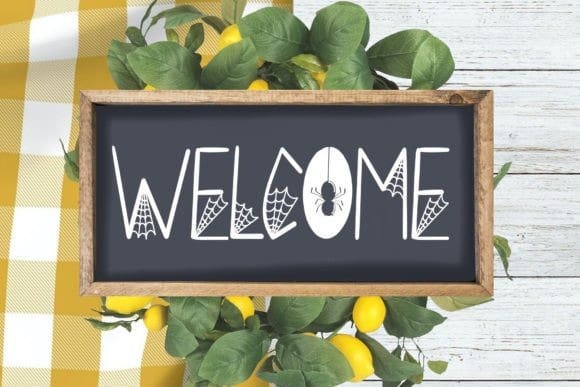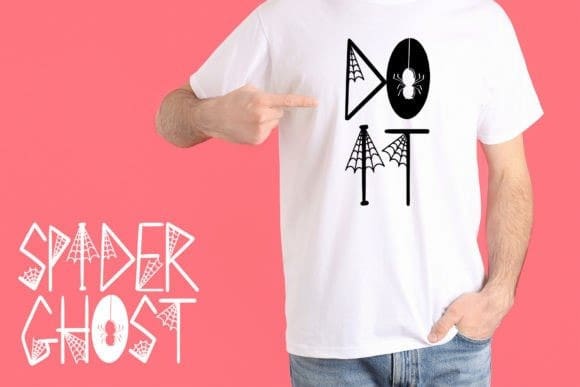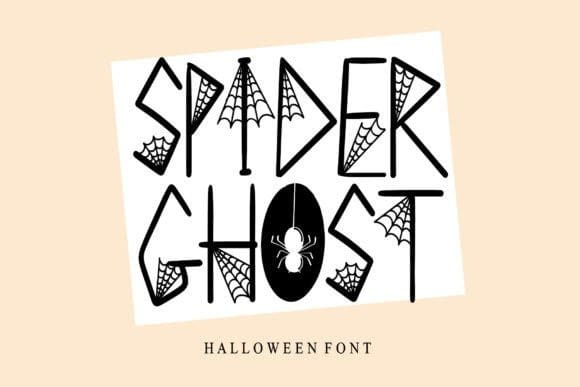
Spider Ghost Font
Spider Ghost Font is a Halloween decorative font. Add it to your Halloween crafts, horror movie posters, t-shirts, and anything else that requires a spectacular look.